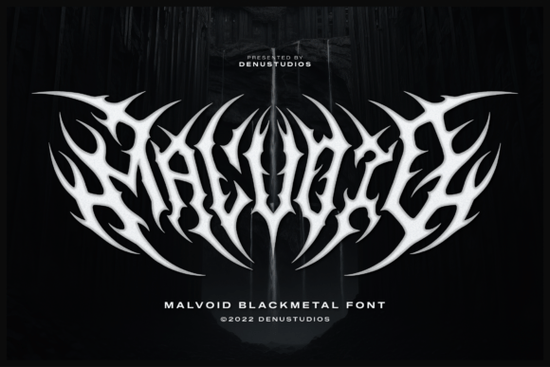
If you're designing for the extreme music scene or working on dark, horror-themed projects, the Malvoid font is built exactly for that world. It's a blackmetal typeface with aggressive, sharp-edged characters and organic, root-like extensions that bleed into each other. The result is a chaotic but balanced look that works perfectly for band logos, concert posters, occult merch, and underground zines.
What Makes Malvoid Different from Other Blackletter Fonts?
Most blackletter fonts lean on traditional calligraphy. Malvoid takes a different approach. Each character has blade-like edges and asymmetrical details that give it a hand-drawn, almost ritualistic feel. The letters often merge into one another, turning any word into a symmetrical icon which means you can skip adding extra logo elements around your text.
It's designed for high contrast on dark backgrounds, so it reads clearly on vinyl sleeves, screen-printed tees, and gig posters in dimly lit venues. The font carries the raw energy you'd expect from underground metal artwork without looking like a generic stencil.
Who Is This Font Best For?
Malvoid works well for:
- Death metal and black metal bands looking for authentic logo typography
- Merch designers creating horror or occult-themed apparel
- Zine makers who want a menacing, underground aesthetic
- Print-on-demand sellers targeting the gothic and metal subculture markets
- Poster designers working on concert or festival artwork
If you sell designs on platforms like Redbubble or TeePublic, a typeface like this can help you reach a niche audience that's passionate and willing to spend on unique art.
How to Get the Most Out of Malvoid
Here are a few practical tips for working with this typeface:
- Use dark backgrounds. Black or deep charcoal works best. The font was engineered for high contrast against dark surfaces.
- Stick to white or blood-red. These color pairings maximize the visceral, aggressive feel of the letterforms.
- Keep your layout minimal. Because the characters themselves are so detailed, you rarely need extra decorative elements. Let the font do the heavy lifting.
- Scale it up. This typeface is built for display use. It shines at large sizes on posters, banners, and merch not body text.
How Does It Compare to Other Dark Blackletter Fonts?
There are several typefaces in the extreme aesthetic space, and each has its own character. Grimersia leans into ornate, Victorian-era blackletter styling with heavy decorative flourishes you can read more about that ornate blackletter style here. It's great for gothic branding and vintage horror projects.
If you want something with sharp, architectural geometry, Archer offers a bold blackletter option with clean edges. We cover more about its structured blackletter design in a separate review.
For designers who need even more aggression, Antifight delivers a raw, battle-worn look that pairs well with thrash and hardcore aesthetics. You can explore more of those aggressive typeface options and find the one that fits your specific project.
Compared to all of these, Malvoid stands out for its organic, root-like extensions and the way individual letters seem to grow into each other. It's less geometric and more wild which is exactly the point for extreme underground art.
Where Can You Use the Malvoid Font?
This typeface works across a range of dark design projects:
- Band logos and wordmarks
- Concert and festival posters
- Vinyl record sleeve artwork
- Screen-printed apparel and patches
- Underground zine covers and layouts
- Horror movie or game title treatments
- Tattoo flash sheets and reference art
- ✅ Test at actual size display fonts can look very different at small scales
- ✅ Plan your color palette around dark backgrounds for best results
- ✅ Pair with a simple sans-serif for any supporting text or taglines